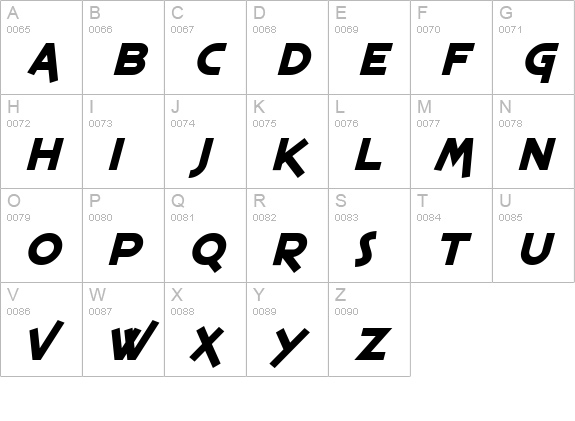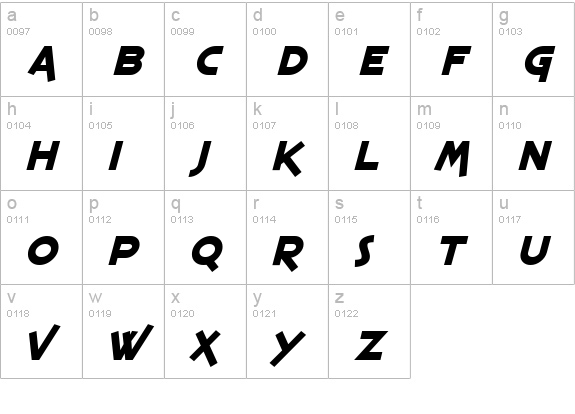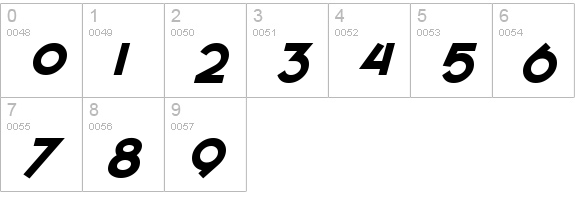
SF Espresso Shack Bold Italic Font Details
SF Espresso Shack Bold Italic is a strong, high-contrast, italic variant in the SF typeface family \xE2\x80\x94 well suited to headlines, attention-grabbing titles, and strong calls-to-action.
Introducing SF Espresso Shack Bold Italic font, a dynamic and eye-catching typeface that exudes a sense of boldness and sophistication. This font effortlessly combines the strength of bold letterforms with the elegance of italic styling, creating a truly captivating visual experience. SF Espresso Shack Bold Italic font is perfect for those looking to make a statement with their designs. Its strong and assertive presence commands attention, while the subtle slant of the italic characters adds a touch of elegance and flair. Whether used for headings, titles, or logos, this font will effortlessly elevate any project to new heights. But what sets SF Espresso Shack Bold Italic font apart is not just its stunning aesthetics, but also its accessibility. We believe that great design should be freely available to all, and that is why we are excited to offer this font as a free download at FontsMarket.com. This means that designers, creatives, and enthusiasts alike can bring their visions to life without any barriers. The versatility of SF Espresso Shack Bold Italic font is another reason to rejoice. Its strong presence makes it a perfect choice for print materials, such as posters, brochures, and book covers, adding a touch of sophistication and professionalism. Additionally, its legibility ensures that it shines in digital mediums as well, making it ideal for websites, social media graphics, and presentations. With SF Espresso Shack Bold Italic font, your designs will stand out from the crowd, making a lasting impression on viewers. Its unique combination of strength and elegance will give your projects a distinct personality, setting them apart from the mundane and ordinary. So, why wait? Elevate your design game today by downloading SF Espresso Shack Bold Italic font for free at FontsMarket.com. Experience the power and beauty of this stunning typeface, and unlock a world of possibilities for your creative endeavors.